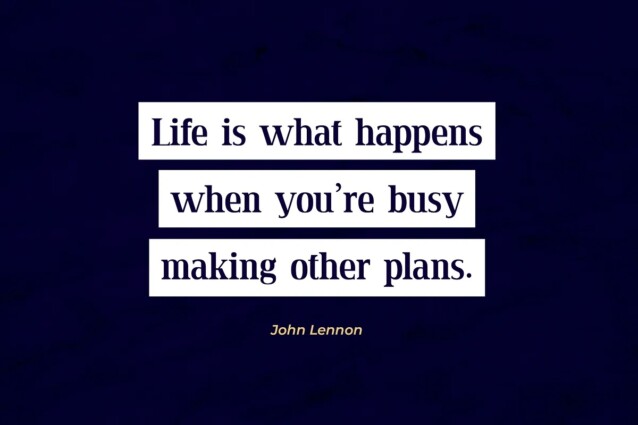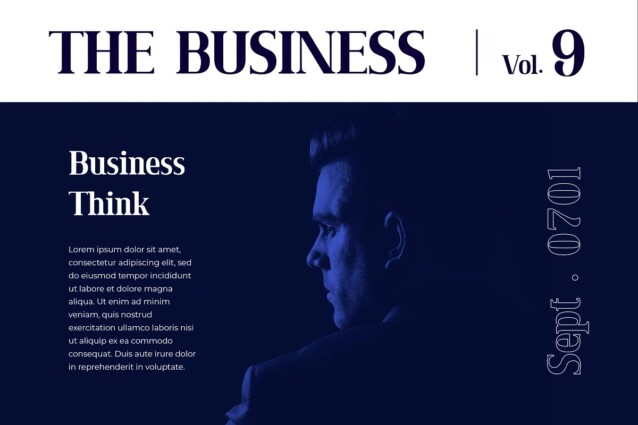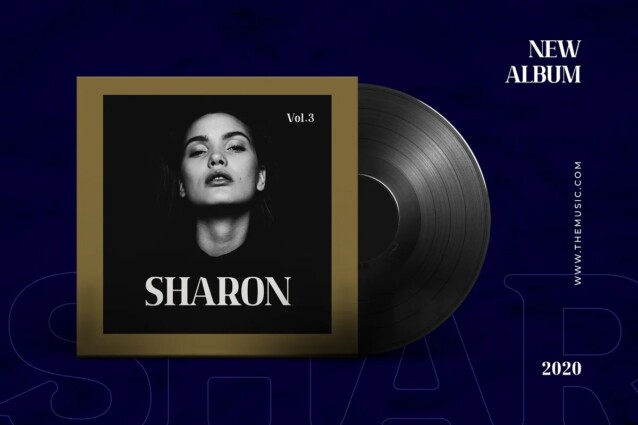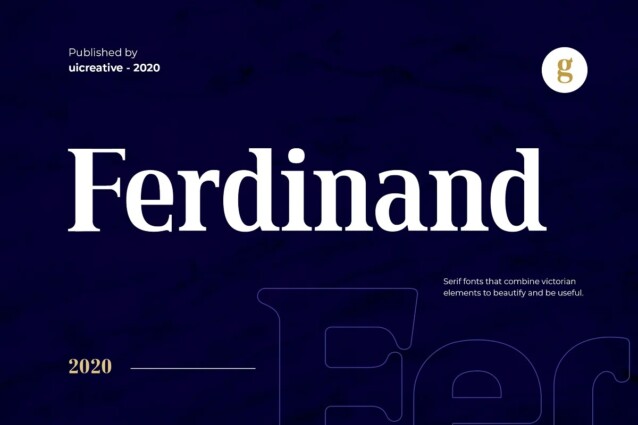
Ferdinand Font
Ferdinand Font is a sleek and modern serif typeface from UICreative that offers a touch of luxury to any design. This font is ideally suited for a wide variety of projects, such as signature, stationery, logo, wedding, typography quotes, magazine or book covers, website headers, clothing, branding, packaging design, and more. Also, fashion-related branding or editorial design displays both masculine and feminine qualities.